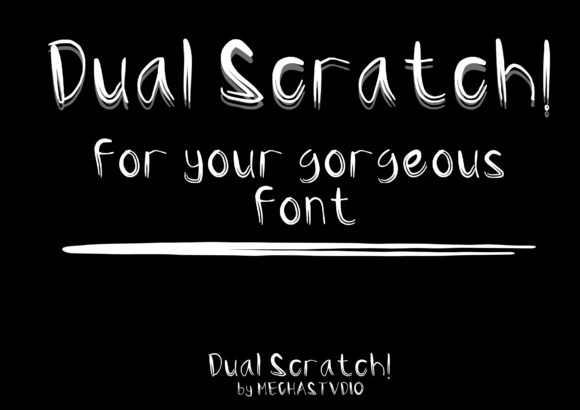
Introducing Dual Scratch Font: A Modern Handwritten Style
In the world of typography, fonts play a crucial role in conveying the tone and personality of a brand or design. With the rise of digital platforms, the demand for unique and versatile fonts has increased exponentially. One such font that has gained significant attention in recent times is the Dual Scratch Font. This modern handwritten font has taken the design world by storm with its natural style and incredible flexibility.
What is Dual Scratch Font?
Dual Scratch Font is a contemporary handwritten font that boasts a distinctive dual scratch effect. This unique feature sets it apart from other fonts and gives it a personalized touch. The font’s natural and effortless style makes it an excellent choice for a wide range of designs, from branding and advertising to packaging and digital media.
Key Features of Dual Scratch Font
- Modern Handwritten Style: Dual Scratch Font features a modern handwritten style that is both elegant and approachable.
- Dual Scratch Effect: The font’s distinctive dual scratch effect adds a touch of personality and whimsy to any design.
- Natural and Effortless: The font’s natural style makes it incredibly fitting for a wide range of designs, from casual to formal.
- Highly Versatile: Dual Scratch Font can be used for various design projects, including branding, advertising, packaging, and digital media.
What Makes Dual Scratch Font So Popular?
Dual Scratch Font has gained immense popularity among designers and brands due to its unique features and versatility. Here are some reasons why this font has become a favorite among designers:
- Unique and Eye-Catching: The dual scratch effect makes the font stand out from other handwritten fonts, grabbing the attention of the audience.
- Flexibility: Dual Scratch Font can be used for various design projects, from logos and branding to social media graphics and digital ads.
- Easy to Read: Despite its unique style, the font remains highly legible, making it perfect for body text and headlines.
- Customizable: The font can be easily customized to fit the brand’s tone and personality, making it a great choice for brands looking for a unique identity.
Use Cases for Dual Scratch Font
Dual Scratch Font is an incredibly versatile font that can be used for various design projects. Here are some use cases where this font can shine:
- Branding and Logos: Create a unique and memorable brand identity with Dual Scratch Font.
- Advertising and Marketing: Use the font for ad campaigns, social media graphics, and promotional materials.
- Packaging Design: Add a personal touch to product packaging with this eye-catching font.
- Digital Media: Use Dual Scratch Font for website headers, blog posts, and social media graphics.
Tips for Using Dual Scratch Font Effectively
To get the most out of Dual Scratch Font, here are some tips to keep in mind:
- Pair it with Neutral Backgrounds: Let the font shine by pairing it with neutral backgrounds that don’t compete for attention.
- Experiment with Colors: Try out different color combinations to find the perfect match for your brand or design.
- Use it for Headlines and Titles: Dual Scratch Font is perfect for headlines and titles, adding a touch of personality to your content.
- Don’t Overuse it: Use the font judiciously to avoid overwhelming the design.
In conclusion, Dual Scratch Font is a modern handwritten font that has taken the design world by storm. Its unique dual scratch effect, natural style, and versatility make it an excellent choice for a wide range of designs. With its high legibility, customizability, and flexibility, this font is sure to become a favorite among designers and brands. So, what are you waiting for? Get creative with Dual Scratch Font and take your designs to the next level!
- What is Dual Scratch Font? Dual Scratch Font is a modern handwritten font featuring a distinctive dual scratch effect.
- Can I customize Dual Scratch Font? Yes, the font can be customized to fit your brand’s tone and personality.